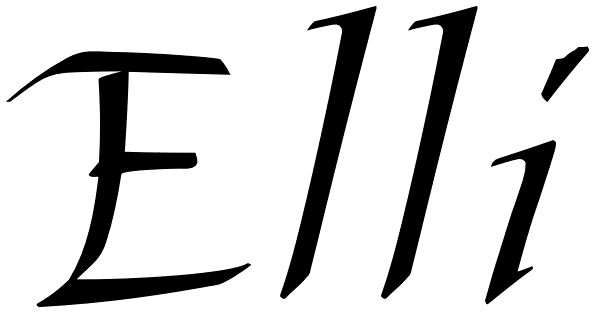
Elli
The typeface Elli was named to honor Eleanor Garvey, Houghton Library’s famed and much-loved Curator of Printing and Graphic Arts at Harvard University. For Elli’s 1990 retirement, Bill Bentinck-Smith commissioned Jean Evans to design a “digitized...